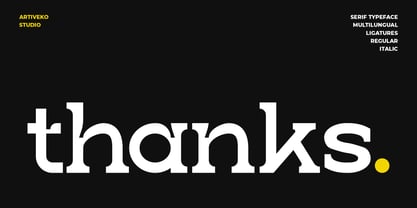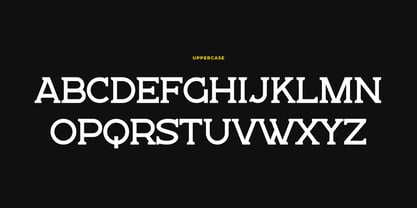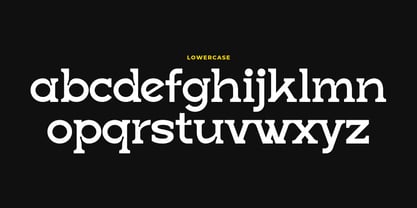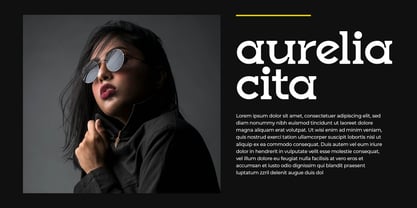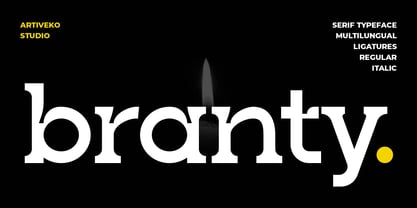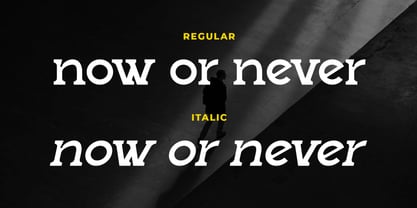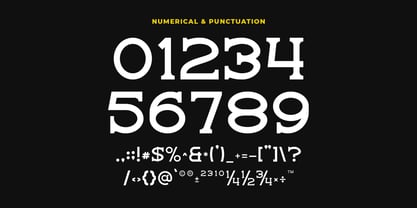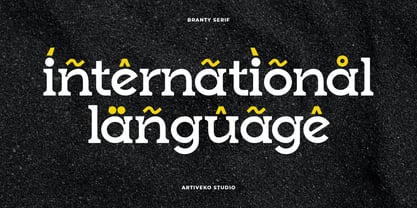
Branty
by Artiveko
The Branty Font Family was designed by Iwan Alwan and published by Artiveko. Branty contains 2 styles and family package options. More about this family
Branty is a modern serif typeface that blends timeless elegance with a fresh contemporary twist. Its sharp serifs, high contrast strokes, and refined letterforms make it a versatile choice for premium branding, editorial designs, and luxury packaging.
Designed for designers who appreciate structure and style, Branty offers a perfect balance between classic sophistication and modern minimalism. Whether you're creating a logo, magazine headline, invitation, or website hero text, Branty elevates your message with grace and authority.
Designers: Iwan Alwan
Foundry: Artiveko